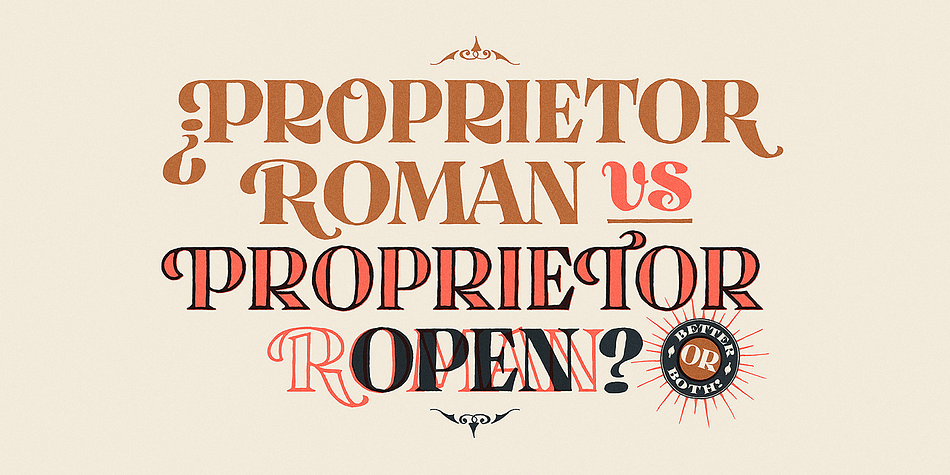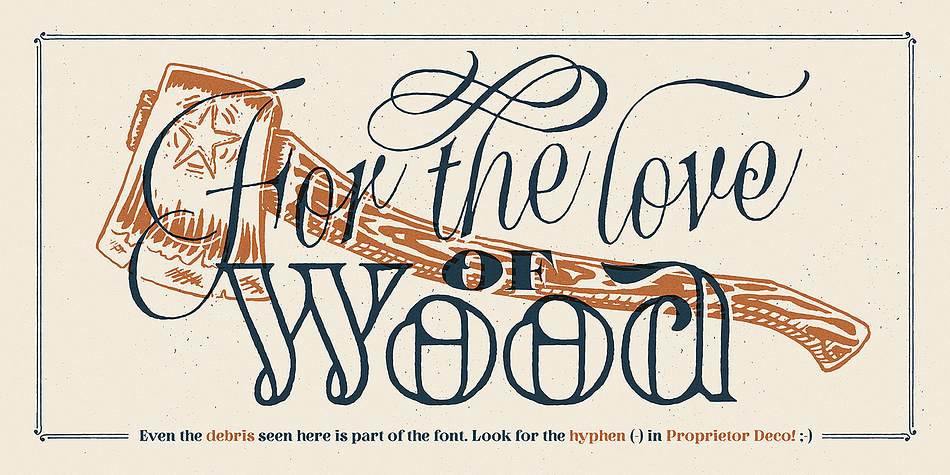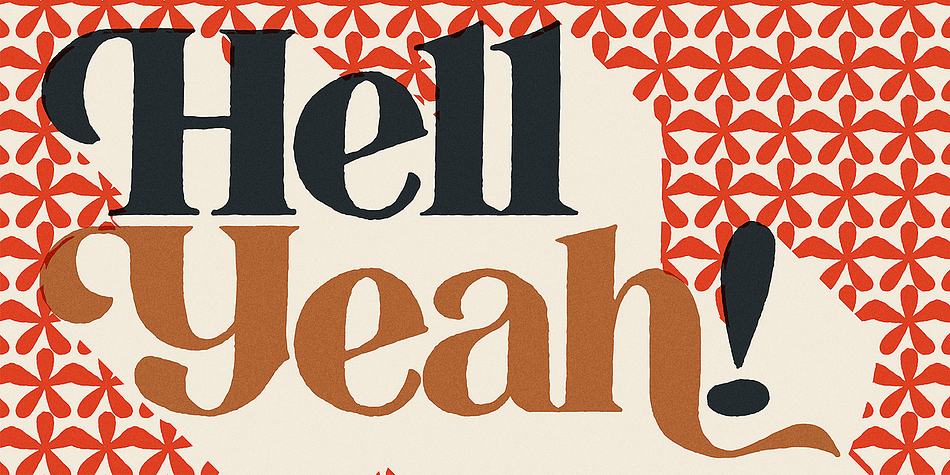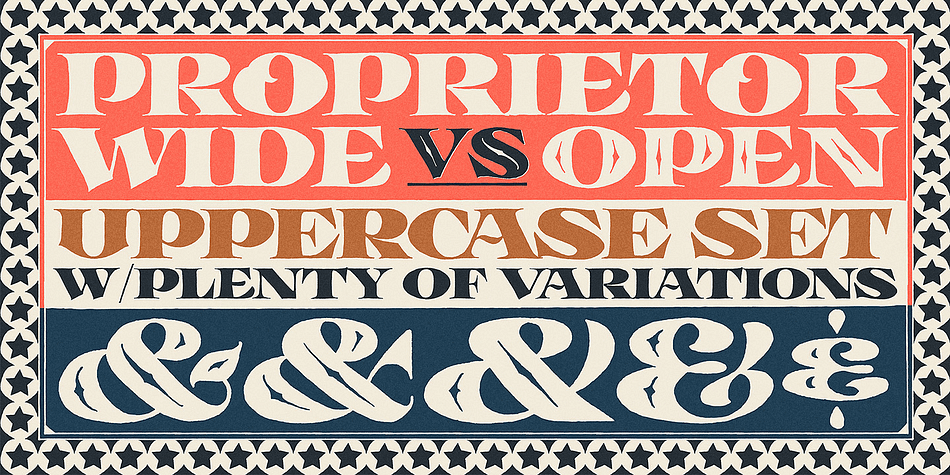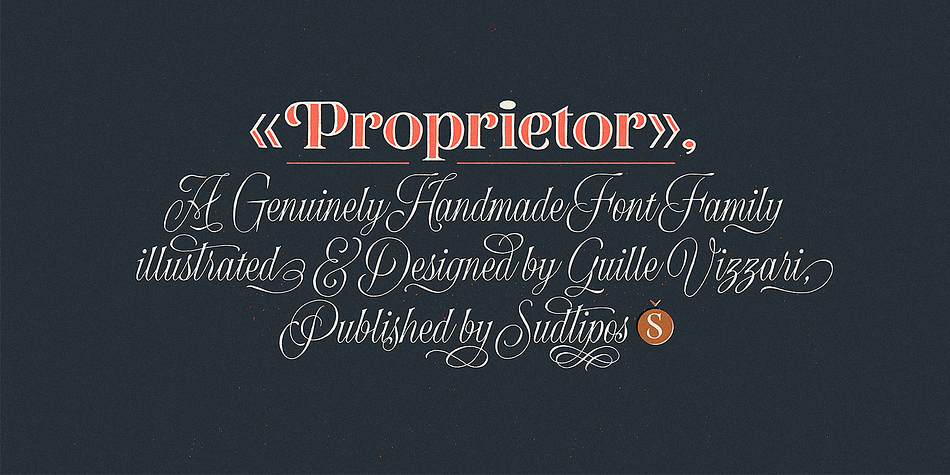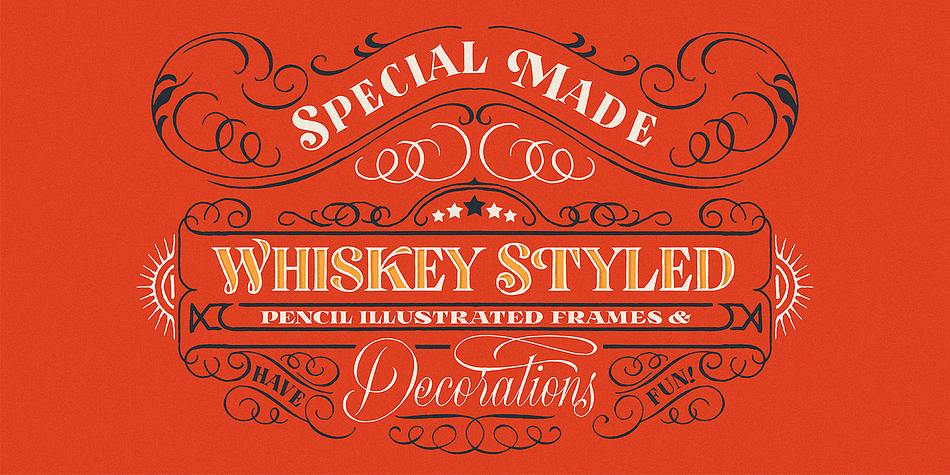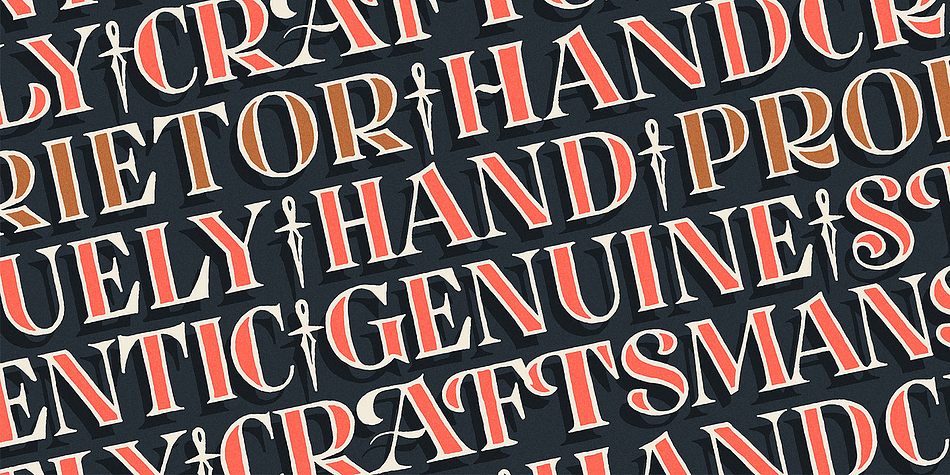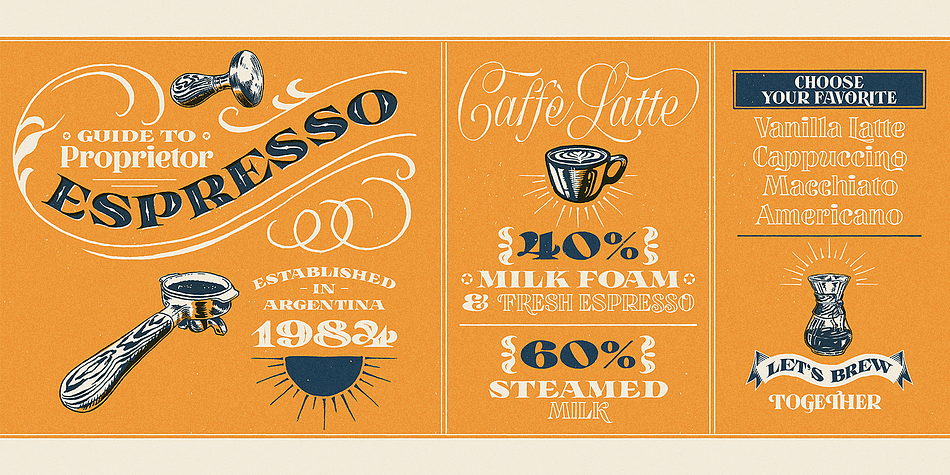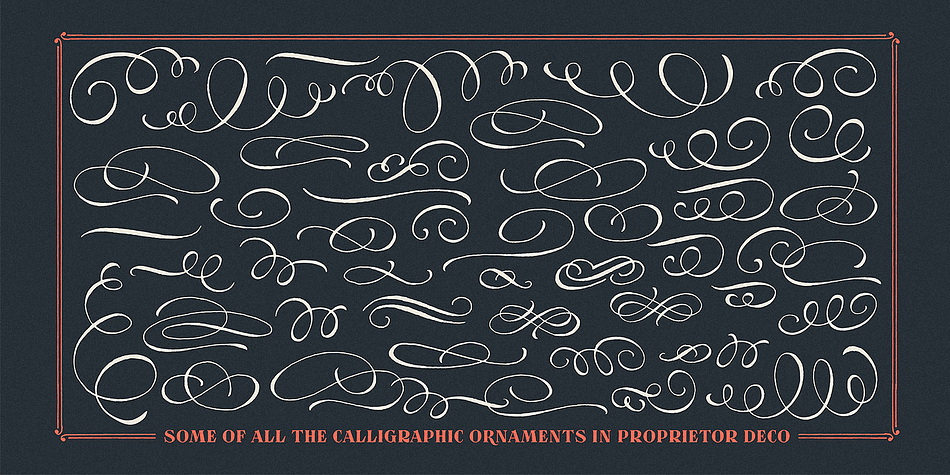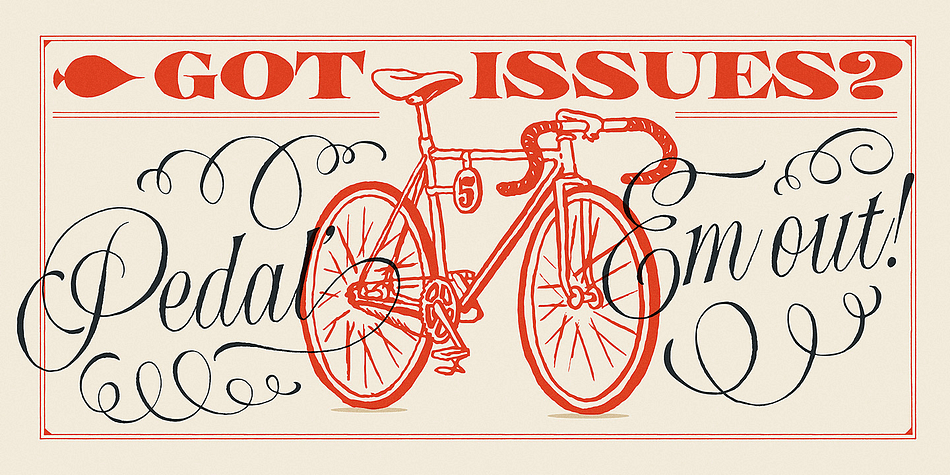
Designed by Guille Vizzari, Proprietor is a dingbat, script and display serif font family. This typeface has seven styles and was published by Sudtipos.
The great value of something crafted thoroughly by hand has been observed for years by Guille Vizzari throughout a wide spectrum of clients and projects developed at Yani & Guille —the studio he runs cheek by jowl with Yani Arabena—, and they both noticed that recently it has been taking on a new meaning. From barbers at their shops, to a barista that passionately prepares coffee every morning, or a bartender that deeply enjoys diving towards unknown ingredients, and even Guille’s admiration for sign painters worldwide that keep spreading their passion for the perfectly constructed letter.
This wide trades universe, where craftsmanship represents a huge difference, is where Proprietor lives, and it’s the reason why it exists.
Proprietor was born in a Moleskine notebook —just pencil, paper, and ink— as a tribute to those crafts, and to regain the art of Type Design that involves the fusion between tools, materials, and the action of the hand.
Fed by these principles, every single glyph within the whole Proprietor Family has been fully designed and illustrated by hand by its author (including all the ornaments, frames and crafts icons that can be seen in this specimen), showcasing Vizzari’s solid formation in the drawing field.
Proprietor can be described as a compact type family system illustrated by hand, intended and designed to be able to create solid —but beautifully ornamented— paragraphs and elaborate compositions.
For this purpose, Proprietor Roman and Open display a notorious x-height which goes perfectly with plenty of ornaments that unfold along the ascenders and descenders, but always containing its swashes inside the text line.
The icing on the cake, Proprietor Script, a copperplate-based font unbelievably flooded with ornamented capitals, flourishes and endings to break through the coarse feeling of the Proprietor non-script sets, with a huge load of delicate and warm letterforms.
Proprietor Wide and Wide Open hand a complete font set to complement the family for composing extended words in uppercase, matching in style and adding a striking personality.
And as being part of Sudtipos’ catalog Proprietor comes packed with full Open Type support —thanks to Ale Paul, fearless to tame this hand–drawn beast, supported by his vast knowledge in programming and optimization—.
7 imperfectly elegant and completely handmade fonts join the Proprietor system, bringing life to designs that are meant to represent the spirit of the genuine and skilled craftsmen, showing respect for their trade, and at the same time being part of it.